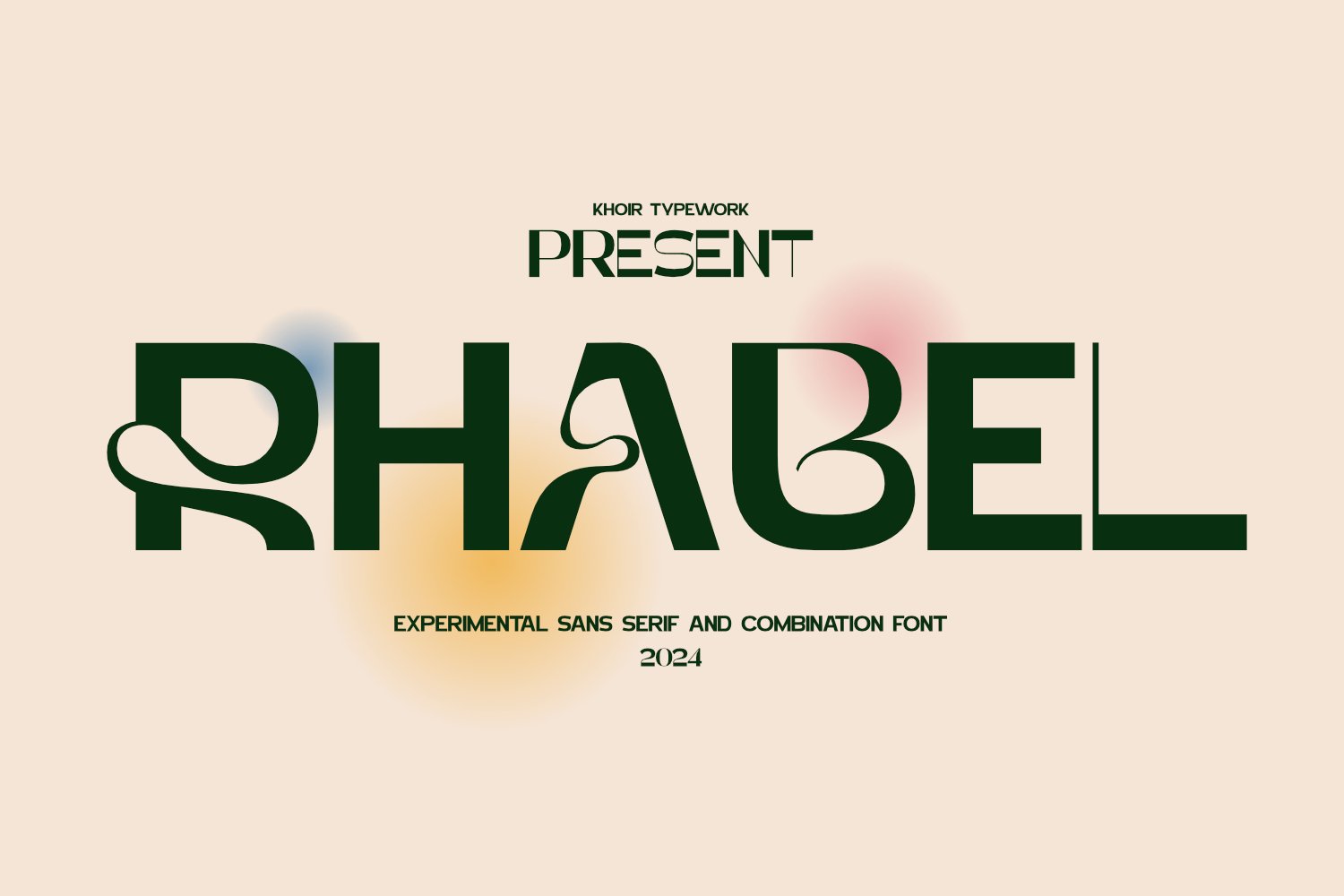
Rhabel - Experimental Font
Rhable
The Rhabel font has an irregular letter shape so it seems to rebel against standards, but that is the uniqueness of the Rhabel font, it has its own character and remains clearly legible, suitable for billboards, posters, covers, branding, business cards, logos and can still be used for anything, depending on where you want to take this font. so what are you waiting for!
• Alternates